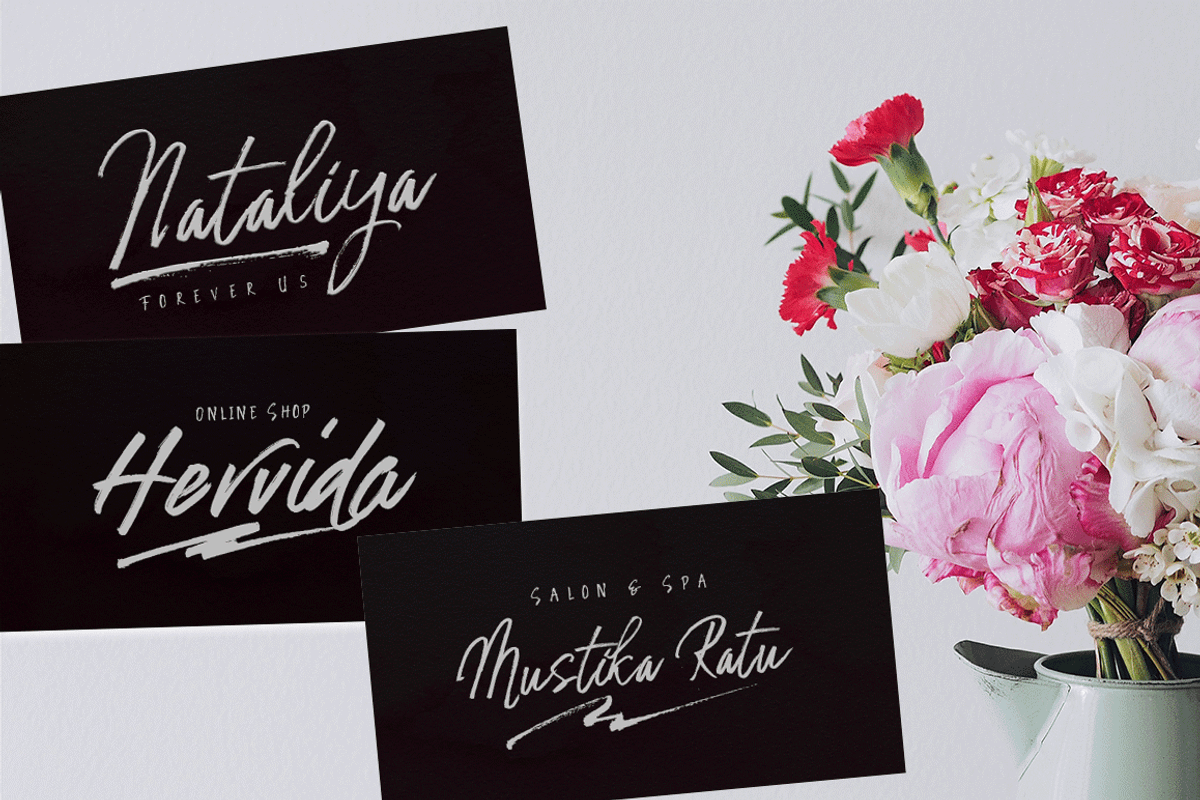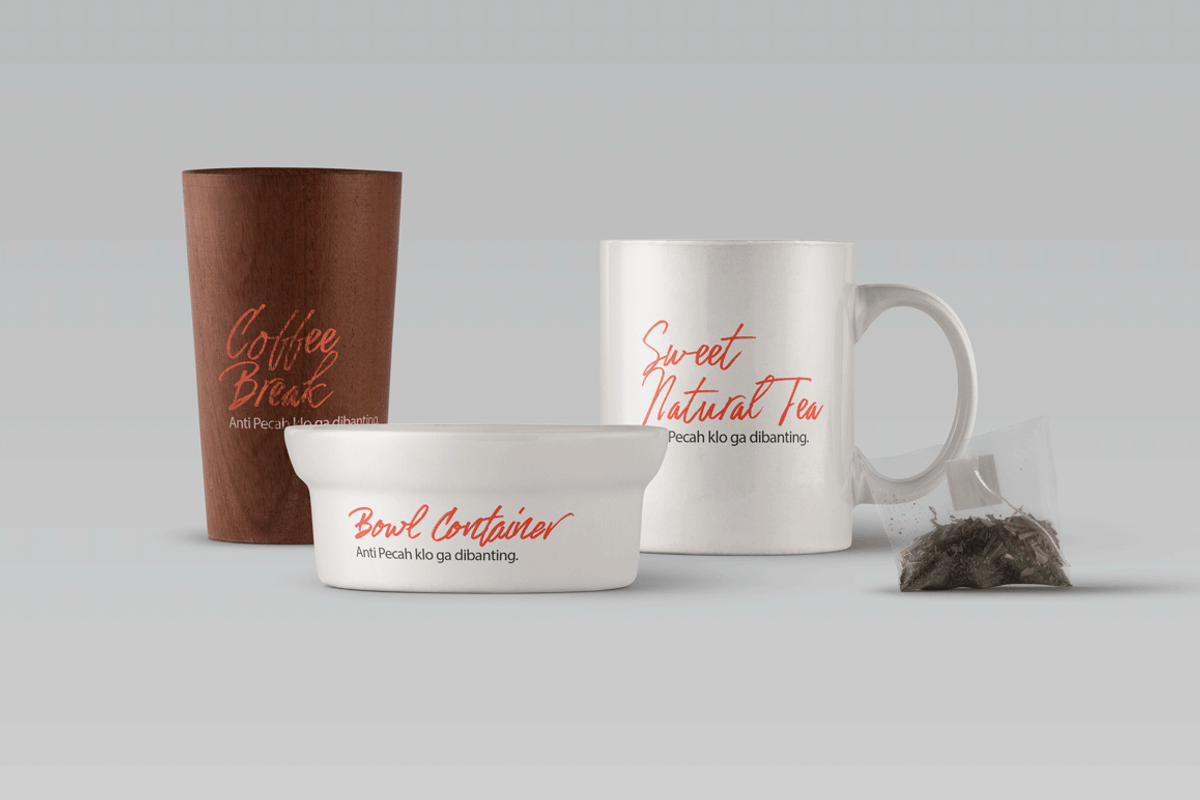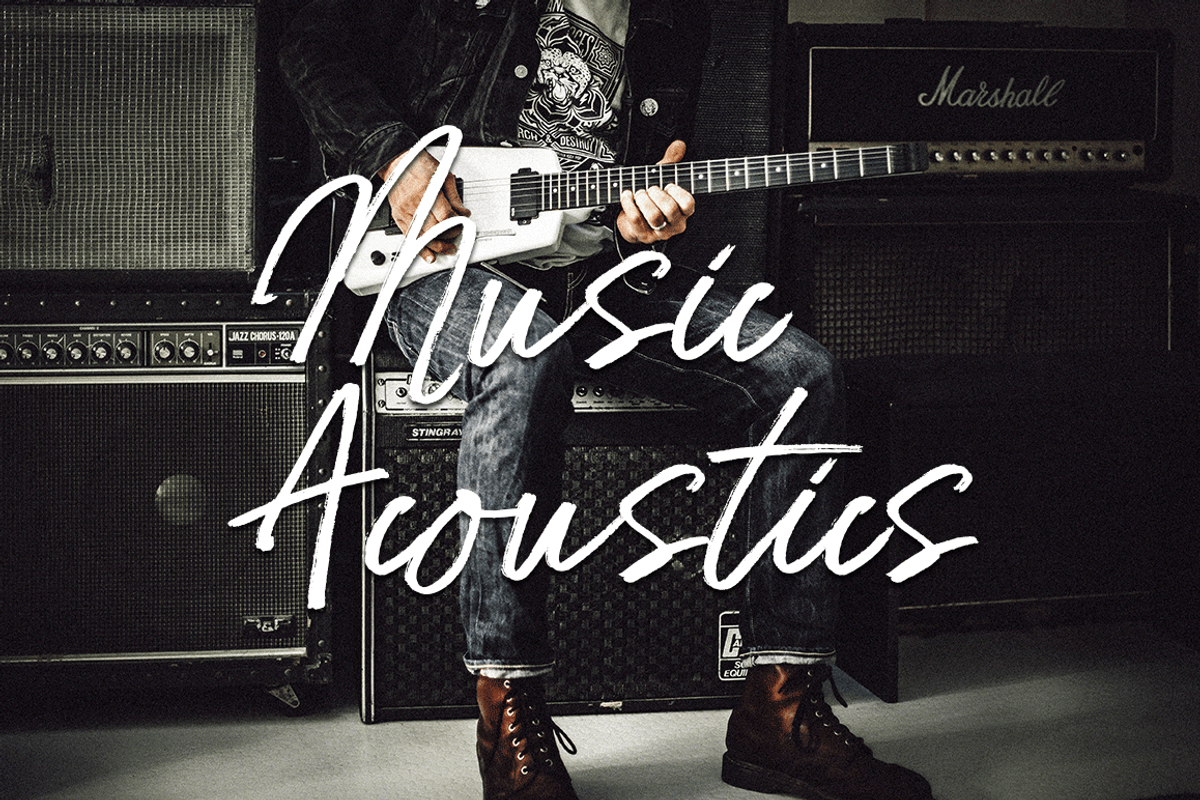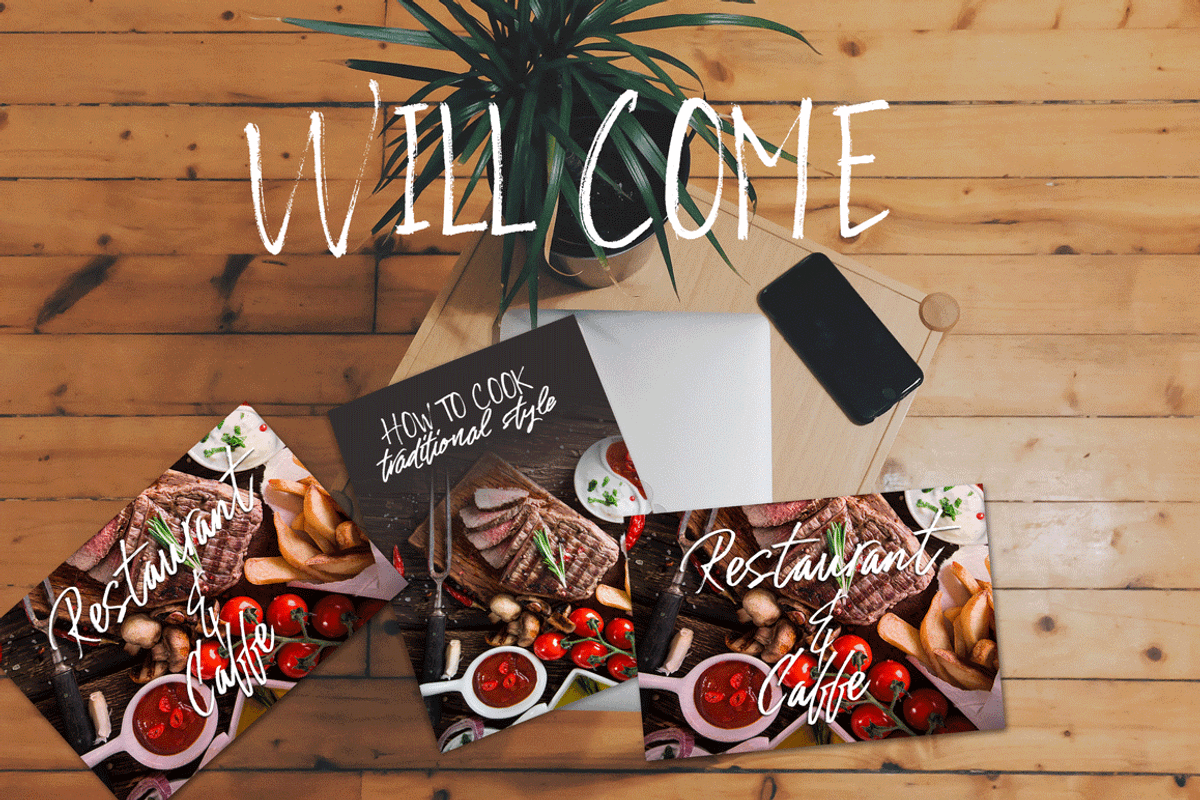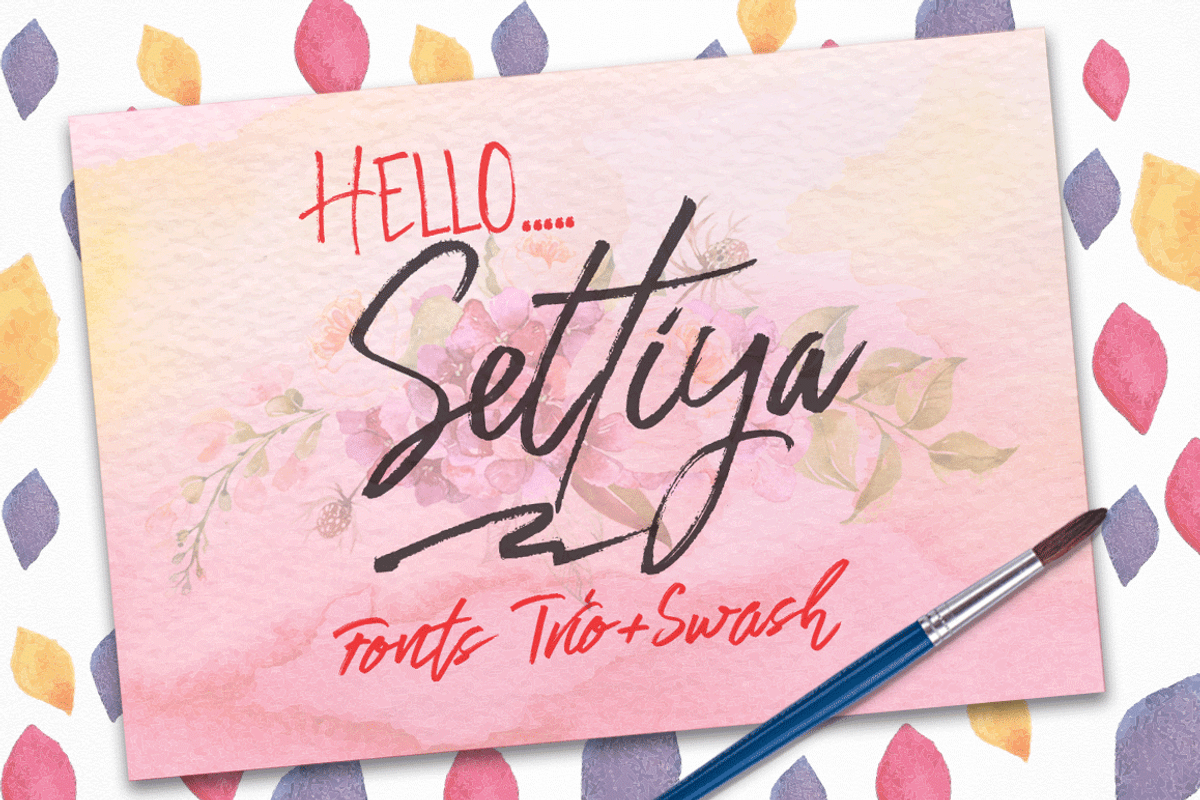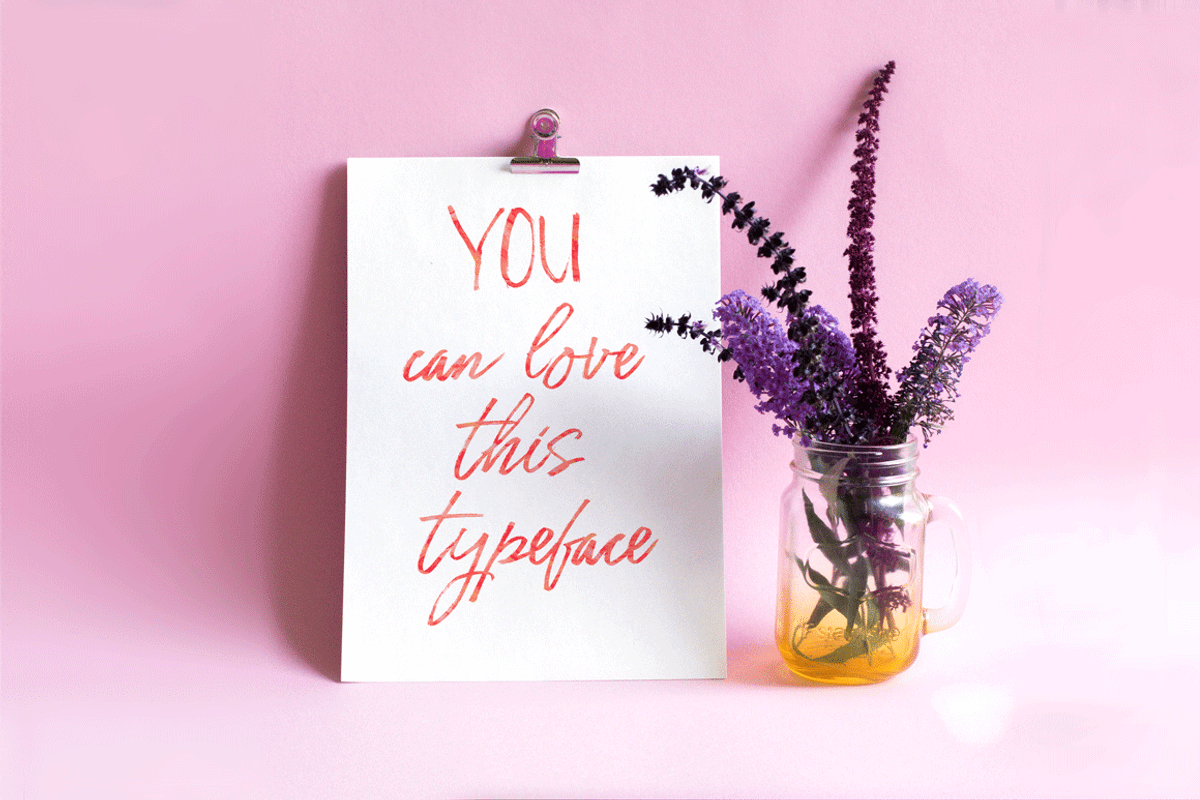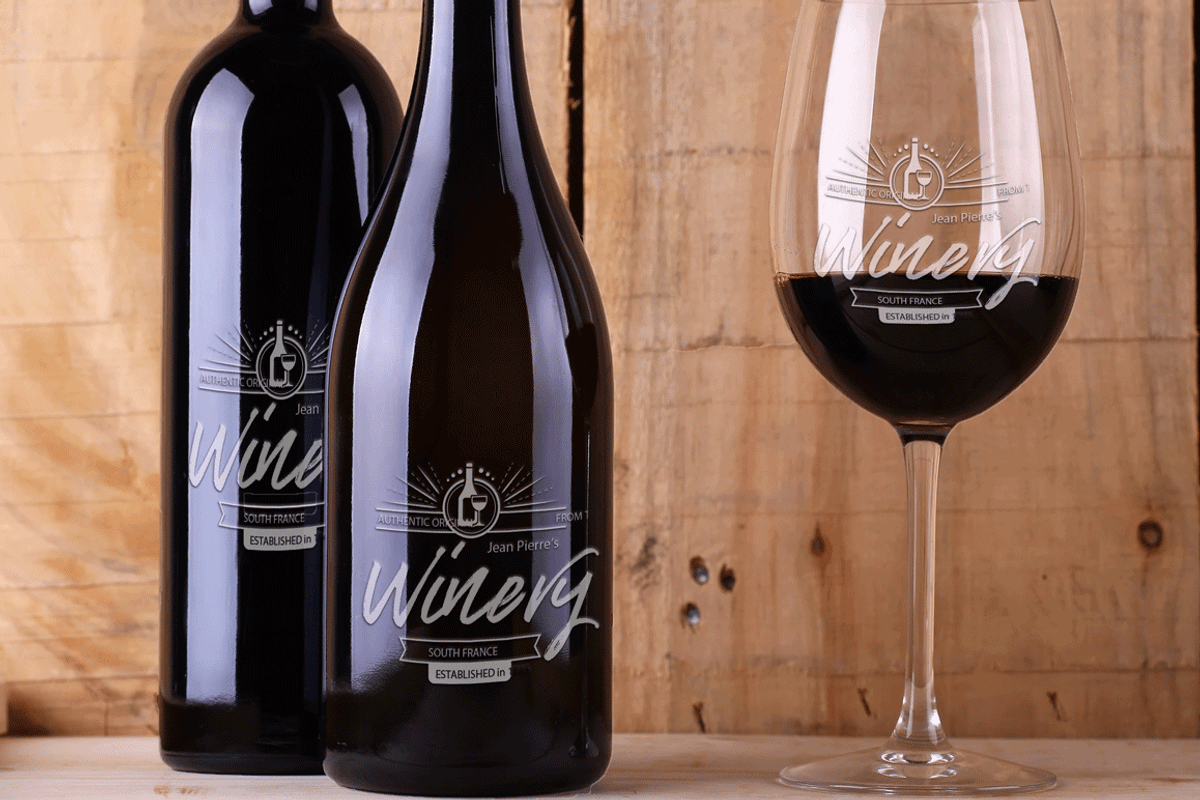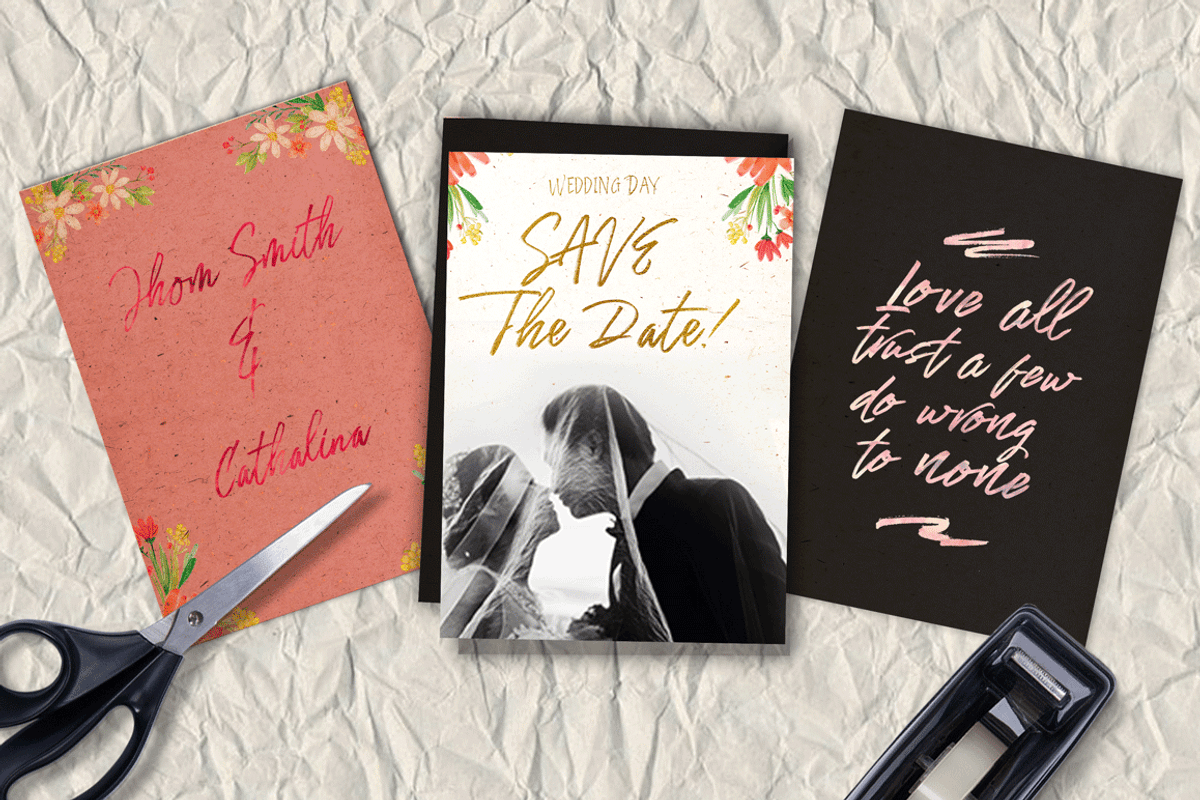
Settiya Fonts Trio+swash
Settiya Fonts Trio+swash by jorse is a font selected for branding, posters, packaging, typography.
- Settiya is hand drawn letter script with and Lawercase Uppercase letters, numbers and various punctuation, ligature and Alternatives Settiya
- Settiya Bold is a hand drawn letter script but it is not contiguous who have and Lawercase Uppercase letters, numbers and various punctuatio
Why Settiya Fonts Trio+swash is worth a look
Settiya Fonts Trio+swash by jorse fits naturally into Branding, posters, packaging, typography.